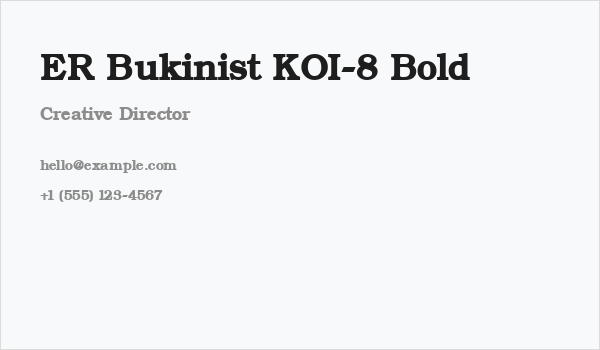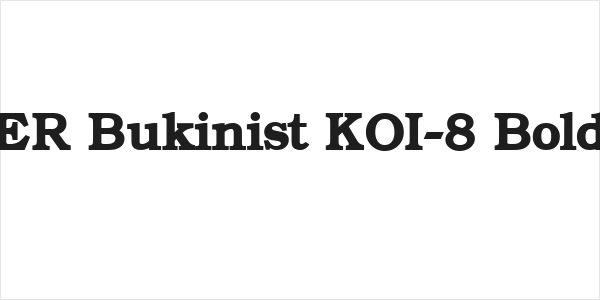
ER Bukinist KOI-8 Bold Font
ER Bukinist KOI-8 Bold Description
This bold serif font features strong, thick strokes that convey a sense of authority and tradition. The uppercase letters are robust and commanding, with a classic serif design that enhances readability. The lowercase letters maintain the same boldness, offering a consistent look across different text sizes. Numbers are equally bold, ensuring they stand out in any context. The special characters are designed to match the overall weight and style, making them suitable for a variety of uses. The font's boldness and clarity make it ideal for headlines and titles, where impact is essential.
Overall StyleClassic
Proposed ProjectsIdeal for book covers, editorial headlines, posters, and branding projects that require a traditional yet impactful look.